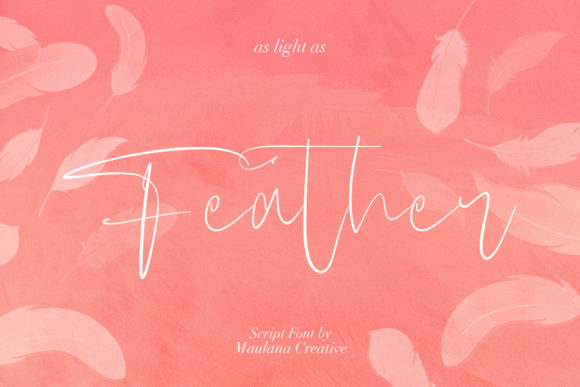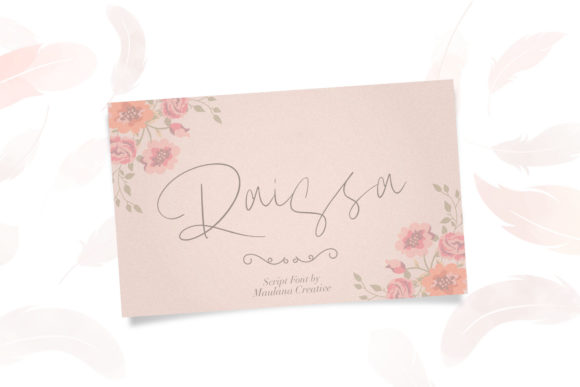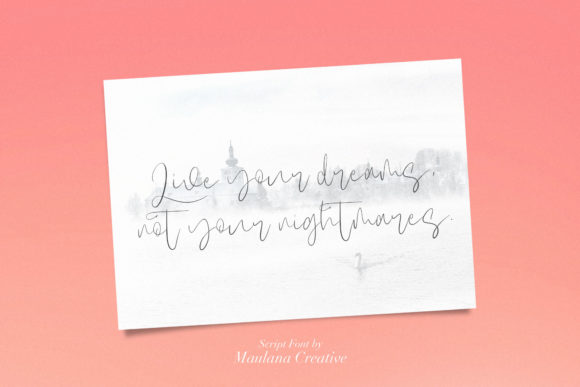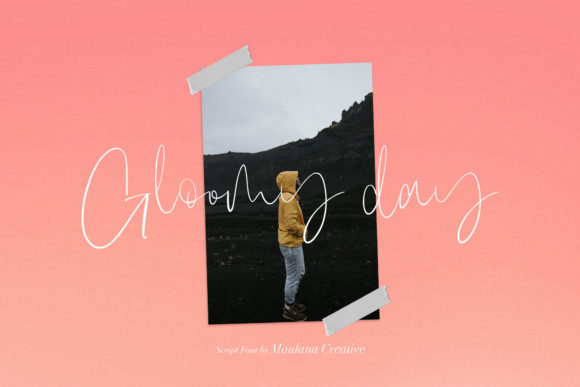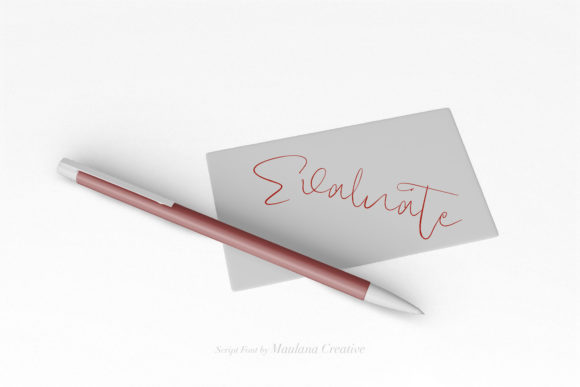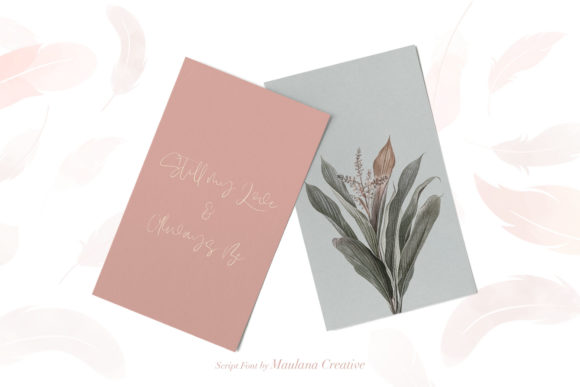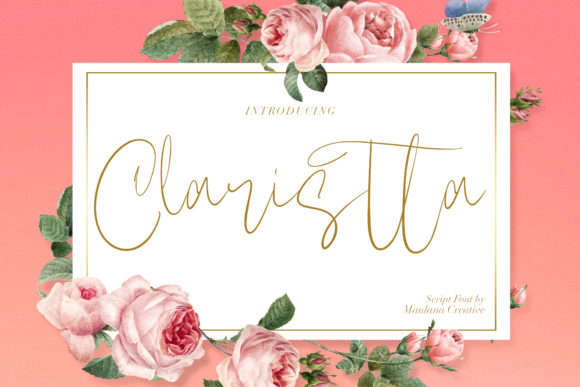
Introducing Claristta Font: The Perfect Choice for Designers and Crafters
Are you tired of using generic fonts that lack personality and character? Look no further than Claristta Font, a beautifully crafted typeface that exudes an authentic handcrafted feel. With its stunning ligatures and elegant design, Claristta is perfect for designers and crafters looking to add a touch of sophistication to their projects.
The Unique Features of Claristta Font
Claristta Font boasts a range of unique features that set it apart from other typefaces. Its authentic handcrafted feel gives it a personal touch, making it perfect for projects where you want to convey a sense of warmth and personality. The font’s beautiful ligatures add an extra layer of elegance, making it ideal for use in signatures, logos, stationery, book covers, and branding.
Claristta Font is incredibly versatile, making it suitable for a wide range of projects. Here are just a few examples of how you can use this beautiful font:
• Signatures: Add a touch of elegance to your signatures with Claristta Font. Its beautiful ligatures and flowing design make it perfect for creating unique and personalized signatures.
• Logos: Create a lasting impression with a custom logo designed using Claristta Font. Its handcrafted feel and elegant design make it ideal for businesses and brands looking to stand out.
• Stationery: Elevate your stationery with Claristta Font. Use it to create beautiful letterheads, business cards, and envelopes that reflect your personal style.
• Book Covers: Make your book cover stand out with Claristta Font. Its elegant design and flowing ligatures make it perfect for fiction and non-fiction books alike.
• Branding: Establish your brand identity with Claristta Font. Use it to create a consistent visual brand that reflects your values and personality.
Why Designers and Crafters Love Claristta Font
Designers and crafters love Claristta Font for its unique combination of style and versatility. Here are just a few reasons why:
• Unique Design: Claristta Font has a unique design that sets it apart from other typefaces. Its handcrafted feel and beautiful ligatures make it perfect for projects where you want to add a personal touch.
• Elegant and Sophisticated: Claristta Font is elegant and sophisticated, making it perfect for projects where you want to convey a sense of luxury and refinement.
• Highly Versatile: Claristta Font is incredibly versatile, making it suitable for a wide range of projects. Whether you’re designing a logo, creating stationery, or crafting a book cover, Claristta Font is the perfect choice.
Tips for Using Claristta Font
Here are a few tips for using Claristta Font in your projects:
• Experiment with Ligatures: Claristta Font’s ligatures are one of its standout features. Experiment with different ligatures to add a unique touch to your projects.
• Pair with Other Fonts: Claristta Font pairs well with other fonts, making it easy to create a unique and visually appealing design.
• Use for Headings and Titles: Claristta Font is perfect for headings and titles, where its elegant design and flowing ligatures can really shine.